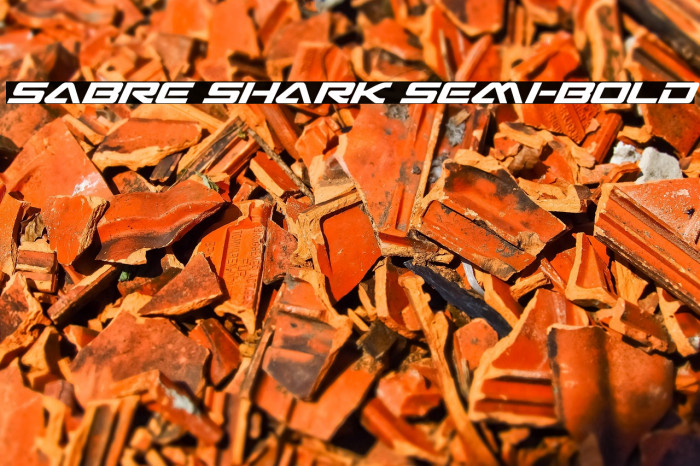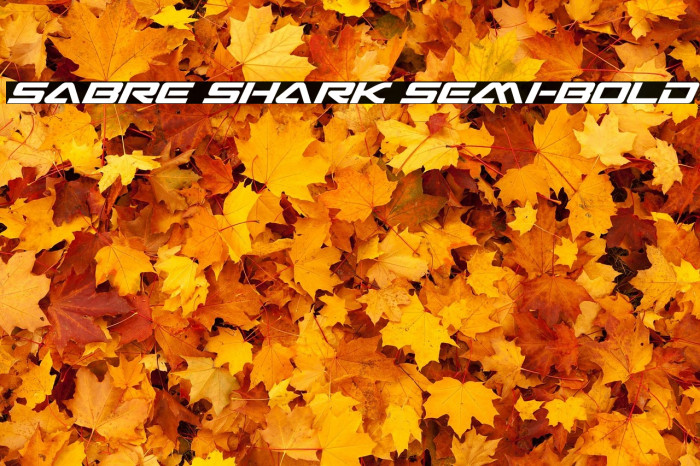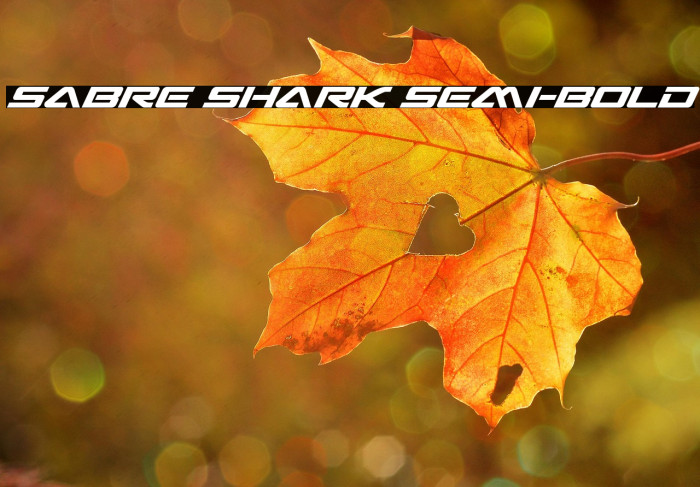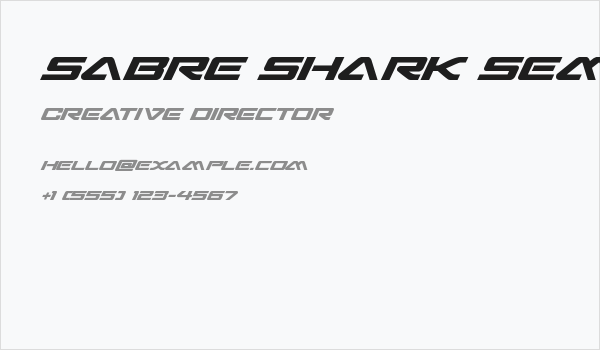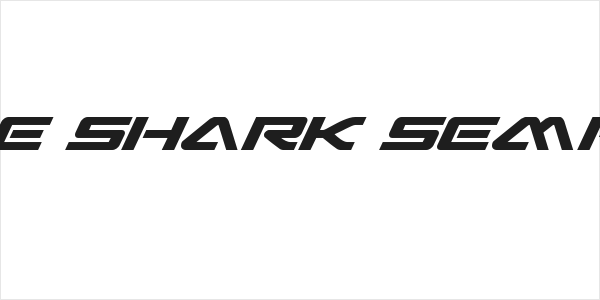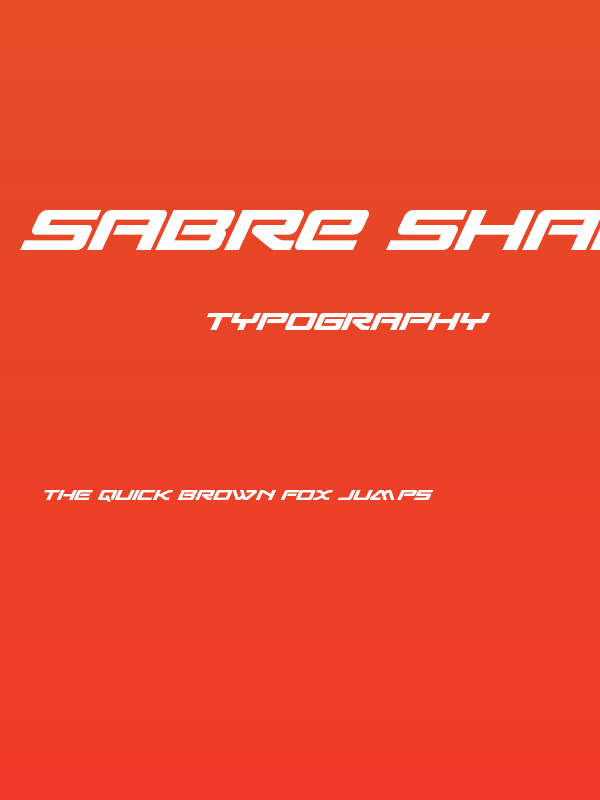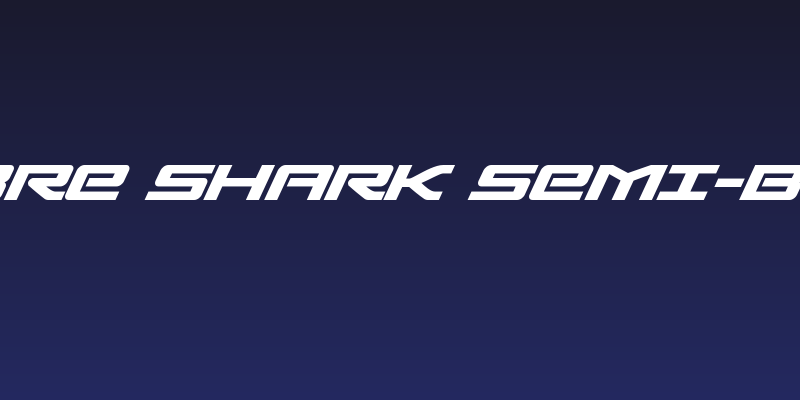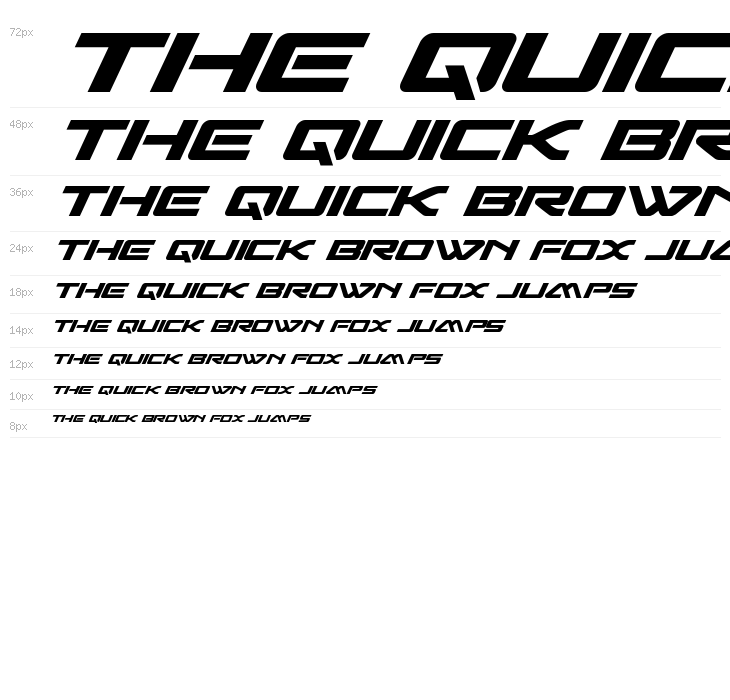
Sabre Shark Semi-Bold Font
Sabre Shark Semi-Bold Description
This font features a bold, futuristic design with sharp, angular lines and a distinct geometric style. The characters are slightly slanted, giving a sense of motion and dynamism. The uppercase and lowercase letters maintain a consistent style, with a strong emphasis on horizontal strokes and sharp edges. The numerals and special characters are designed to match the bold and modern aesthetic, making them suitable for attention-grabbing headlines or logos. The overall appearance is sleek and modern, with a unique flair that stands out.
| Proposed Projects | Ideal for sci-fi themed projects, technology branding, video game titles, and modern advertising. |